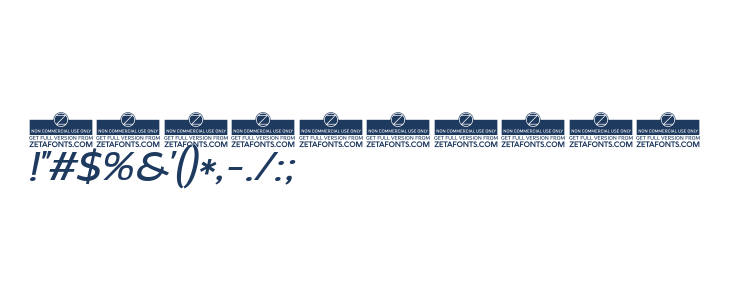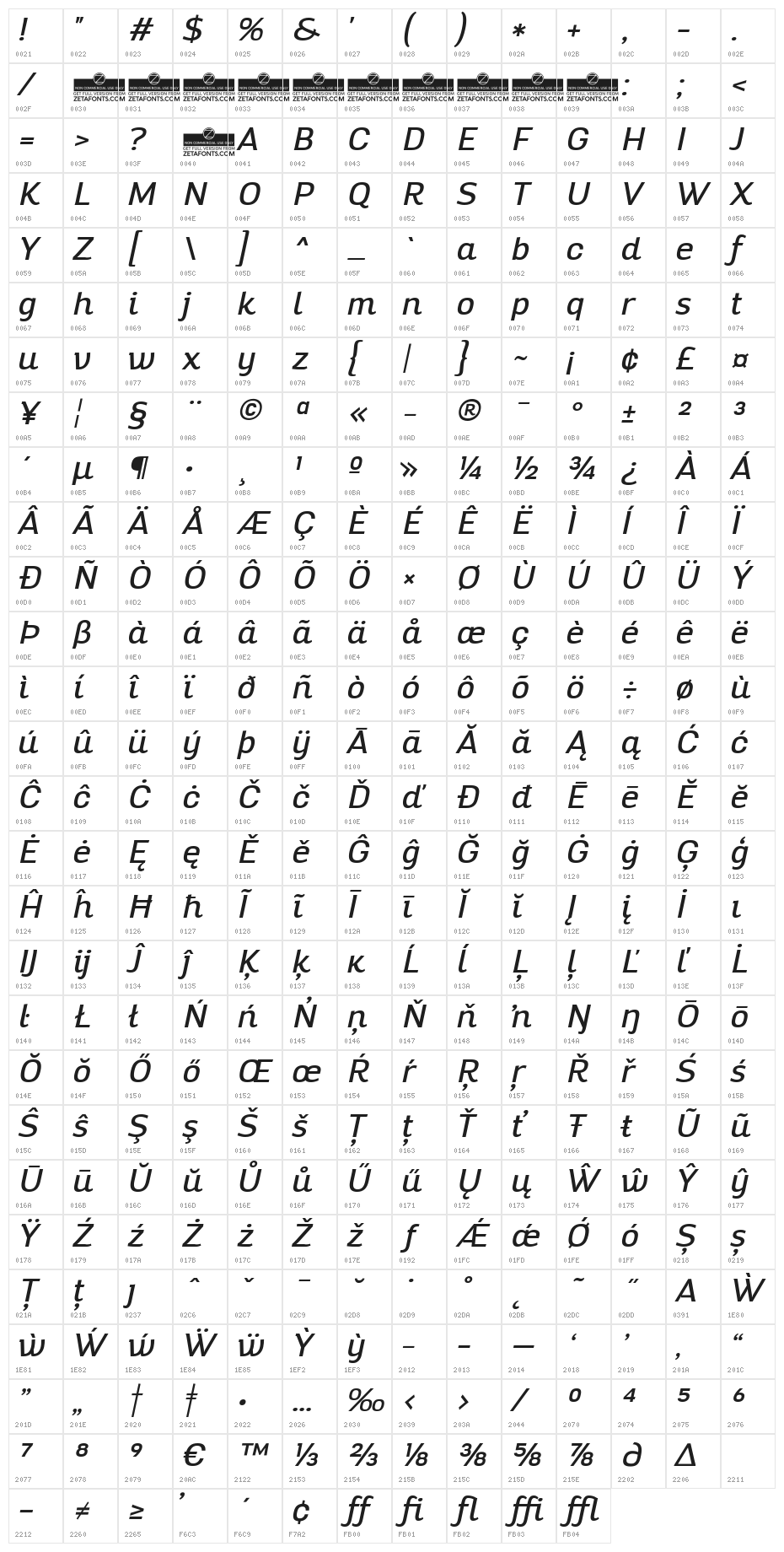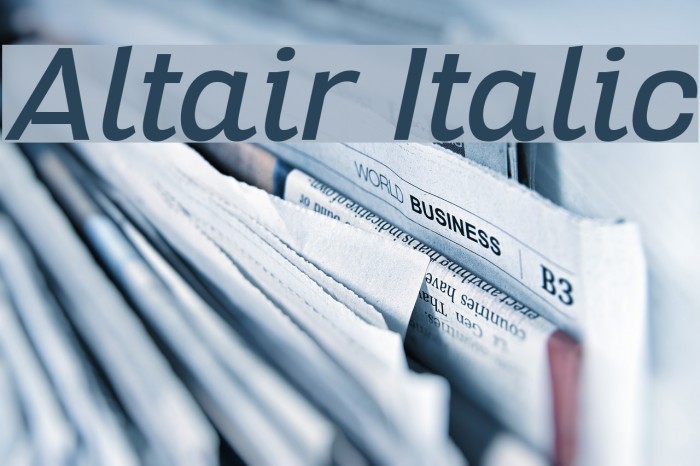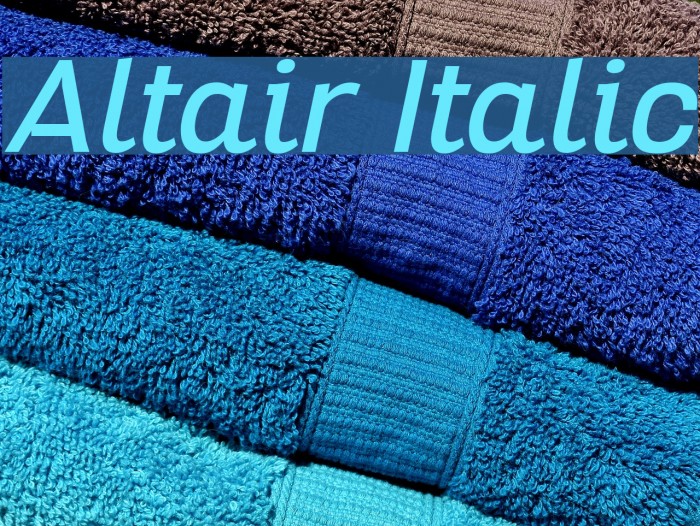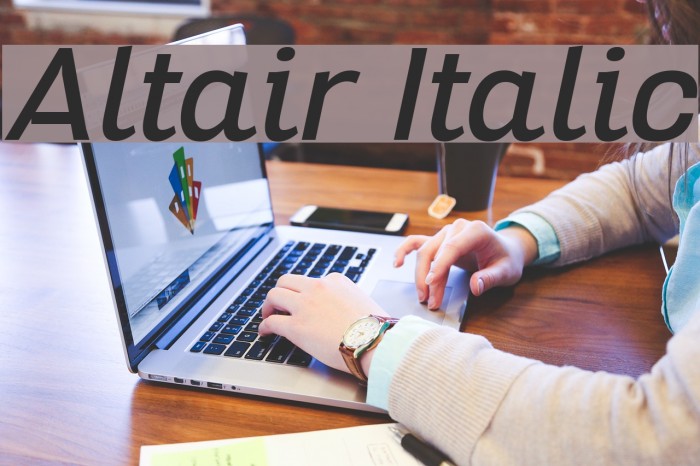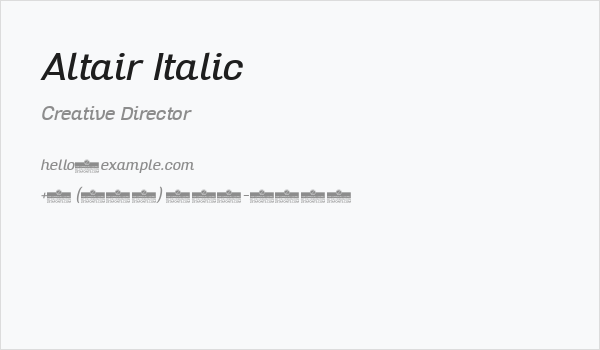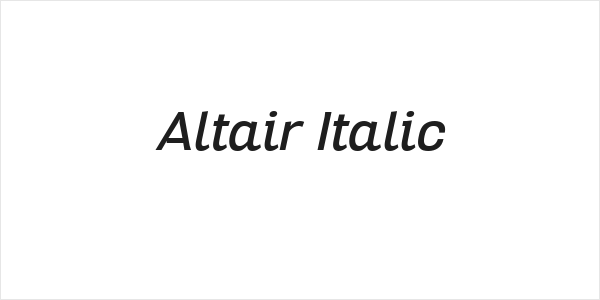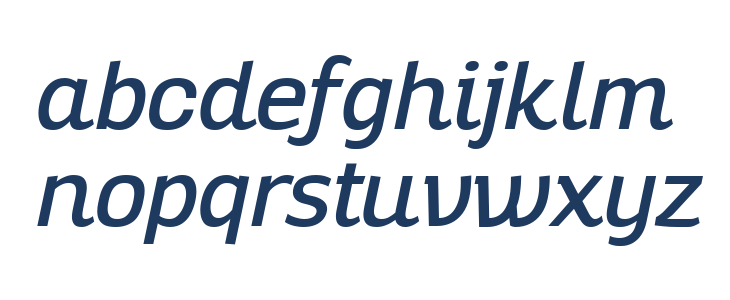
Altair Italic Font
Altair Italic Description
This font features a sleek and modern italic style, characterized by its smooth, flowing lines and slightly condensed letterforms. The slant of the characters adds a dynamic and elegant touch, making it suitable for both formal and contemporary designs. The uppercase letters are bold and assertive, while the lowercase letters maintain a consistent and harmonious flow. The numerals are clear and legible, complementing the overall aesthetic. Special characters are well-integrated, ensuring versatility in various design contexts.